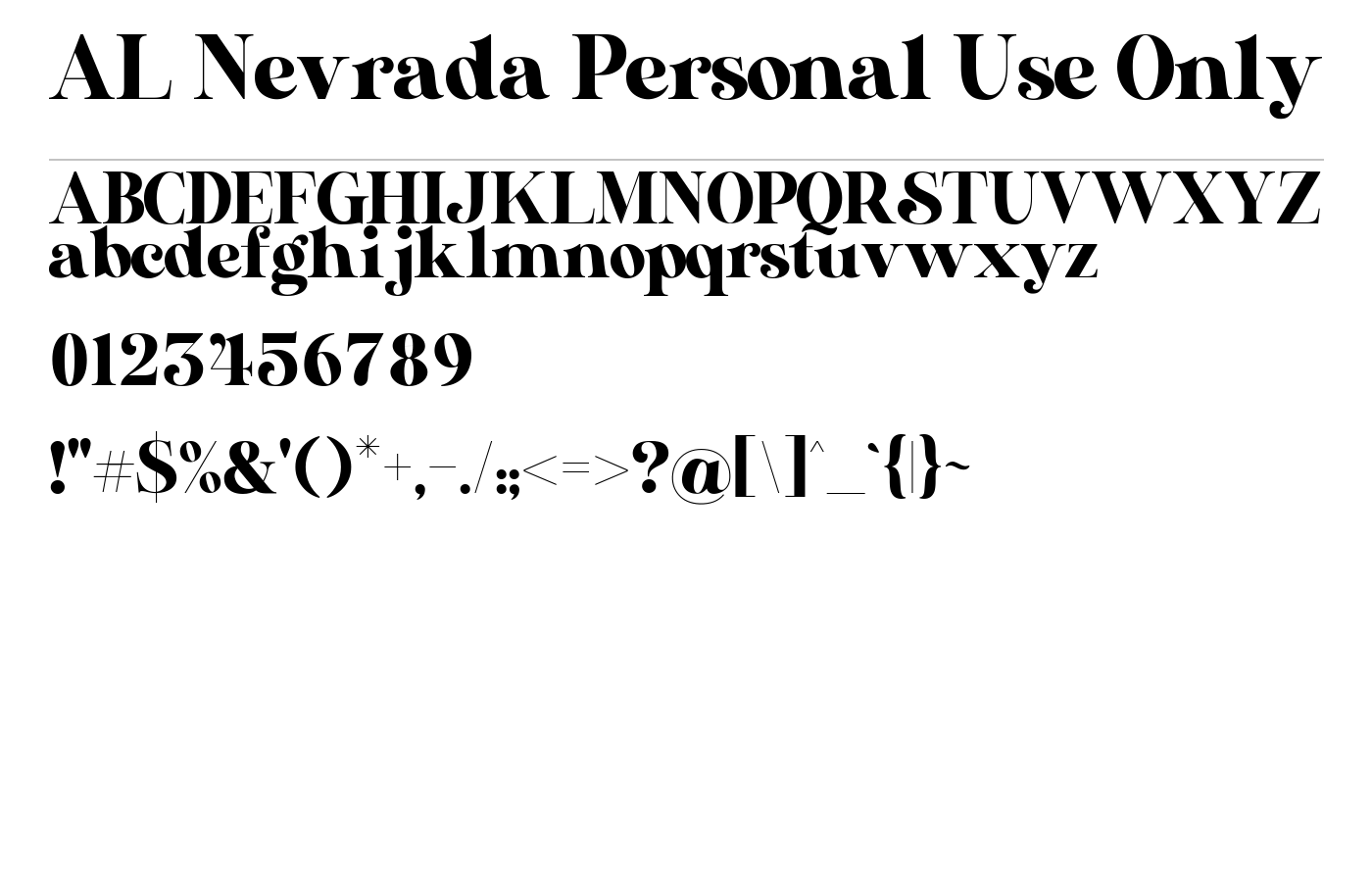
AL Nevrada Personal Use Only is a bold serif typeface with a strong contrast between thick and thin strokes, featuring sharp, bracketed serifs that give it a classic yet dynamic appearance. Its elegant letterforms and slightly condensed width make it well-suited for sophisticated branding, editorial headlines, and stylish logos where a modern but refined look is desired. This font combines both tradition and uniqueness, making it ideal for fashion, luxury, and high-impact print designs.
AL Nevrada Personal Use Only Font
About AL Nevrada Personal Use Only Font